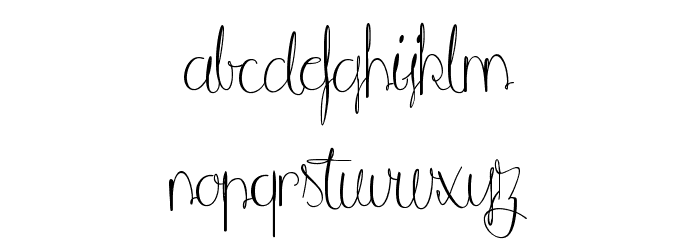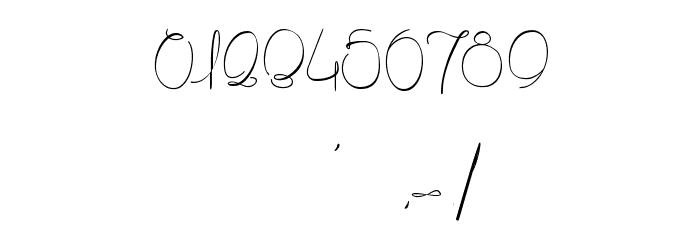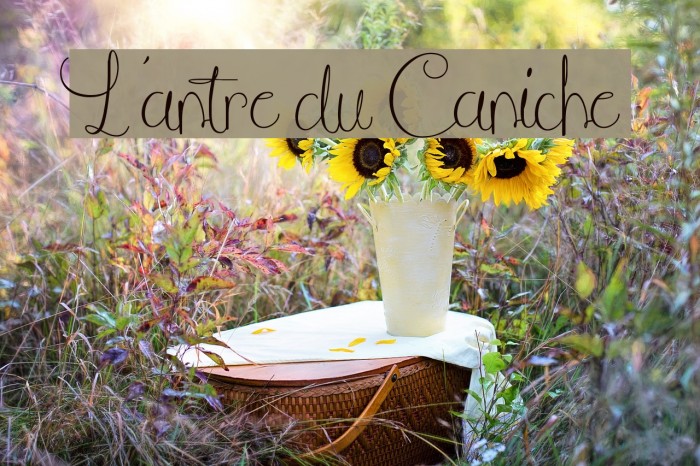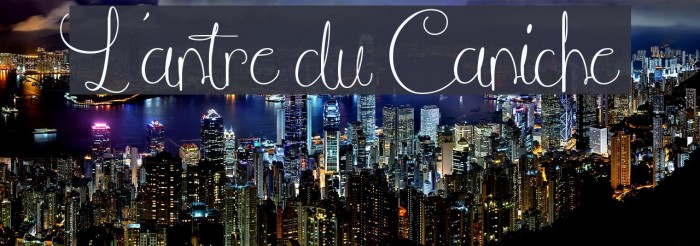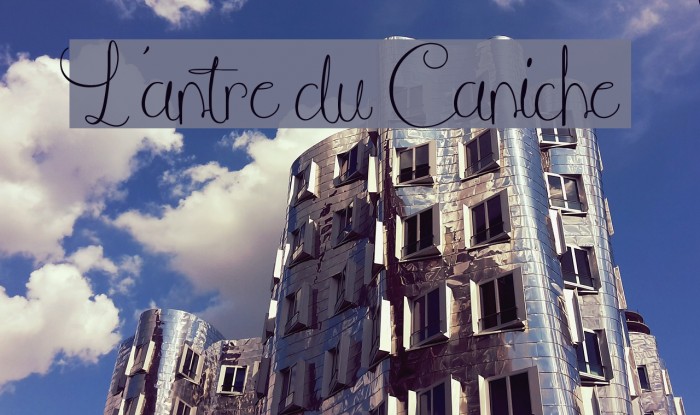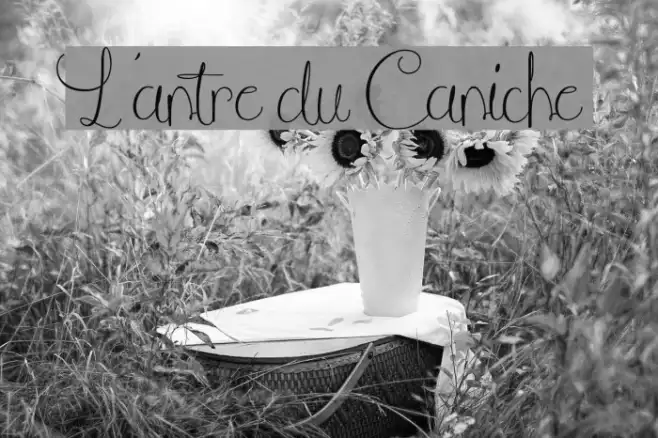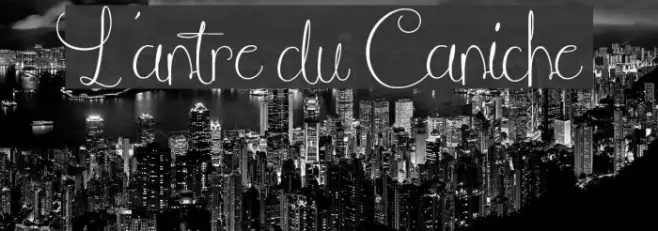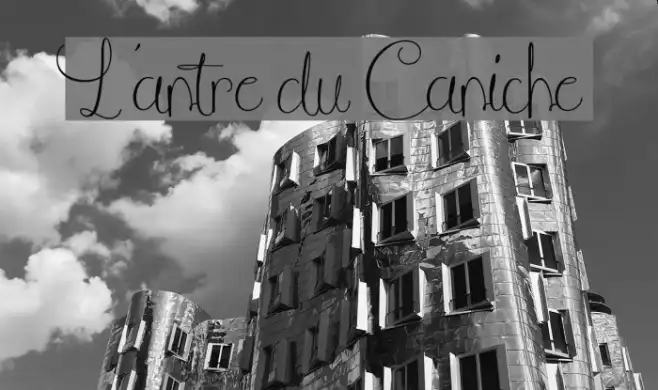
L'antre du Caniche Font
This font features an elegant and whimsical design, characterized by its flowing, interconnected strokes that create a sense of movement and fluidity. The uppercase letters are particularly ornate, with loops and swirls that add a decorative touch. The lowercase letters maintain a similar style but are slightly more restrained, ensuring readability. The numbers and special characters follow the same aesthetic, making the font cohesive across all characters. This font is ideal for projects that require a touch of sophistication and creativity, such as invitations, branding, or artistic designs.
An elegant, whimsical script font with flowing, interconnected strokes.
- Proposed Projects: Ideal for invitations, branding, artistic designs, and decorative projects.
- Use Case: Logos, Invitations, Artistic designs